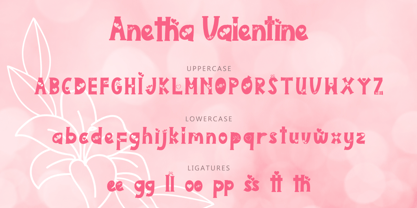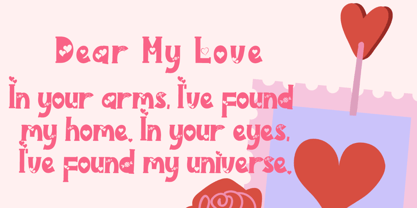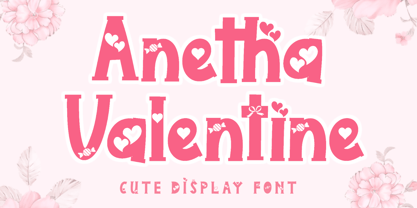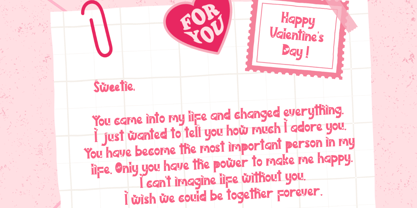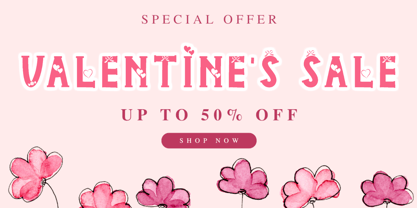
Anetha Valentine
by Yoga Letter
The Anetha Valentine Font Family was designed by Isroni Yoga Prasetya and published by Yoga Letter. Anetha Valentine contains 1 styles. More about this family
"Anetha Valentine" is a cute and sweet display font. It is decorated with cute hearts, ribbons, and candies. It comes with capital letters, lowercase letters, ligatures, numbers, punctuation, and multilingual support. It is perfect for use on Valentine's Day, Thanksgiving, Christmas, weddings, birthdays, invitations, and more.
Designers: Isroni Yoga Prasetya
Foundry: Yoga Letter